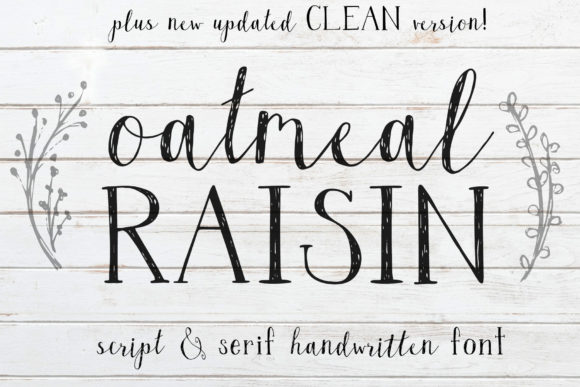
Introducing Oatmeal Raisin Duo Font, the epitome of rustic elegance and the perfect choice for those seeking the best fonts for rustic type. Created by kelliejaynestudio, this script font family will transport you to a cozy fall afternoon, where the aroma of warm cookies fills the air.
Immerse yourself in the nostalgic charm of Oatmeal Raisin, a unique blend of handwritten script and classic serif. Each letter is meticulously hand-drawn with an ink pen, capturing the essence of authenticity and preserving the organic texture and imperfections that make this font truly one-of-a-kind.
With Oatmeal Raisin Duo Font, your creative possibilities are endless. This versatile font duo is a must-have for bloggers, as it effortlessly adds a touch of warmth and personality to your blog posts. Whether you're sharing your latest recipes, DIY projects, or travel adventures, Oatmeal Raisin will captivate your readers and evoke a sense of coziness that keeps them coming back for more.
Packaging designers rejoice! Oatmeal Raisin is the secret ingredient to creating packaging that stands out from the crowd. Its rustic appeal instantly transports your customers to a simpler time, where handmade craftsmanship and attention to detail reign supreme. Let your product shine with a font that tells a story and leaves a lasting impression.
Crafting a logo that truly reflects your brand's identity can be a challenge, but with Oatmeal Raisin Duo Font, it becomes a breeze. The combination of the handwritten script and classic serif allows you to strike the perfect balance between elegance and approachability. Showcase your brand's authenticity and authenticity with a logo that leaves a lasting impact on your audience.
Branding has never been easier with Oatmeal Raisin. This font duo exudes a sense of warmth and nostalgia that will resonate with your target audience. Whether you're designing business cards, stationery, or social media graphics, Oatmeal Raisin ensures that your brand stands out and leaves a lasting impression.
In a world where uniqueness is cherished, Oatmeal Raisin Duo Font sets you apart from the crowd. Its hand-drawn charm and rustic appeal make it the go-to choice for those seeking a font that ignites emotions and sparks inspiration. Download Oatmeal Raisin today and embark on a creative journey that will captivate your audience and elevate your designs to new heights.